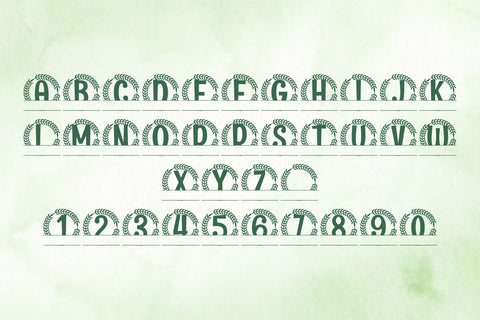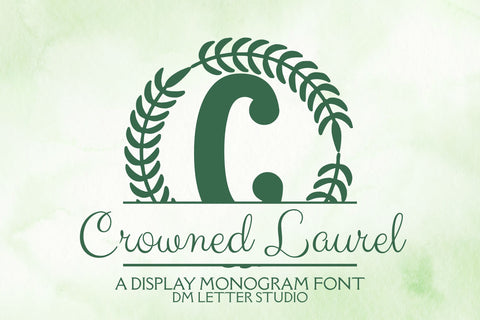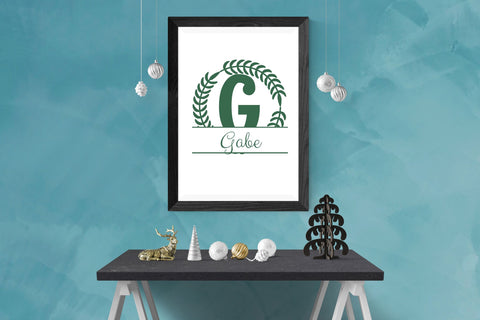
Crowned Laurel Split Monogram
Meet Crowned Laurel Split, the Split Monogram Font
Crowned Laurel Split Monogram turns simple initials into regal emblems with a crown-and-laurel presence and a clean center split for names or dates. It’s made to feel formal, premium, and timeless, without looking heavy. The strokes are smooth and balanced, so letters stay clear at any size. Because counters stay open, small tags stay crisp while large signs remain sharp and refined. Use it for wedding suites, family crests, boutique logos, certificate seals, stationery, and luxury packaging. As a result, your designs instantly look elevated and official.
Fast layouts with Crowned Laurel Split
Start with a bold split initial and center it like a seal. After that, place a family name, couple name, or date across the split area using a separate supporting font if needed. Because Crowned Laurel Split holds shape at small sizes, stickers, tags, and labels stay clean. In addition, it pairs beautifully with oval borders, badge frames, ribbon shapes, and thin dividers, so full sets come together fast. Finally, save palette pairs like black & gold, navy & ivory, charcoal & champagne, or forest & cream to reuse across your product line.
Creative uses and quick wins
- Wedding crest initials with names across the split
- Family crest logos, brand seals, and monogram badges
- Gift tags, stickers, and keepsake box marks
- Labels for candles, perfume, wine, and premium packaging
Design tips for Crowned Laurel Split Monogram
Keep the center text short so the initial stays the hero. Also, give the crown and laurel details room to breathe so they stay readable. For a luxury finish, try gold foil, embossing, or letterpress on thick stock. Finally, export at 300 DPI for print and at 2× size for web so edges stay smooth everywhere.